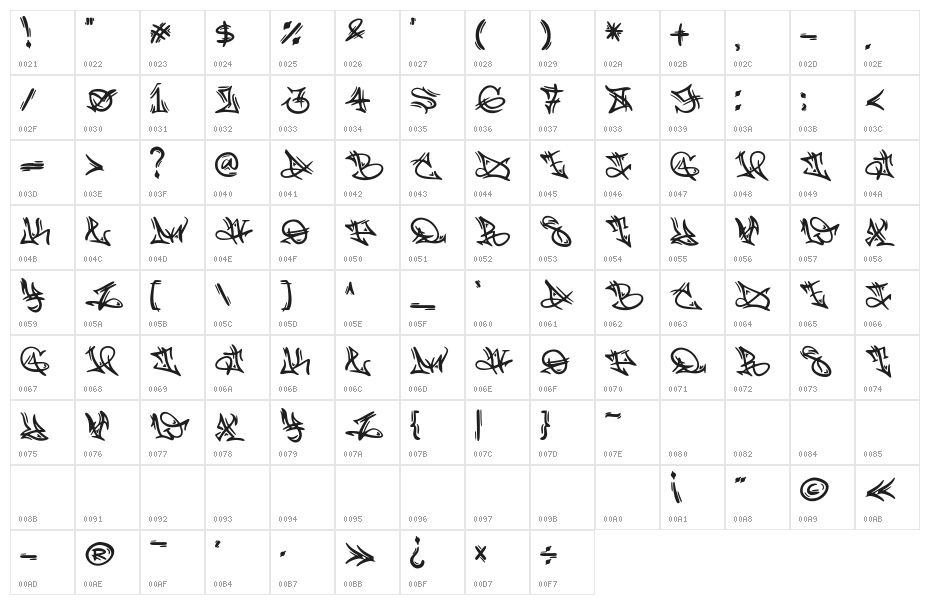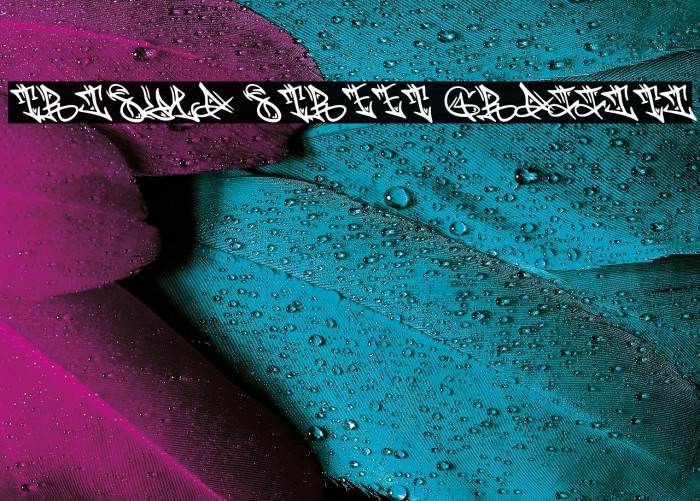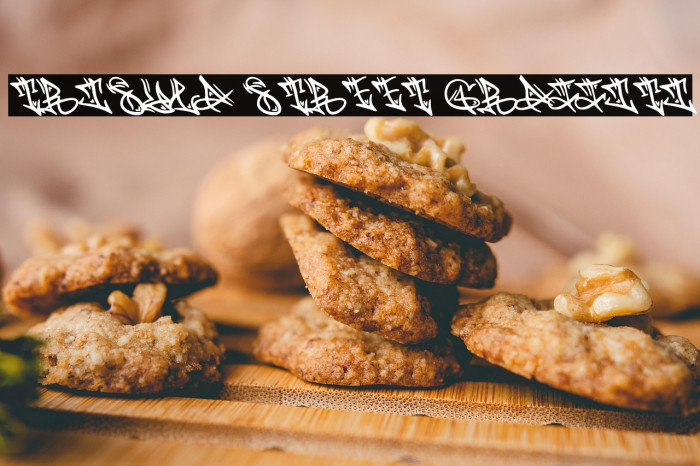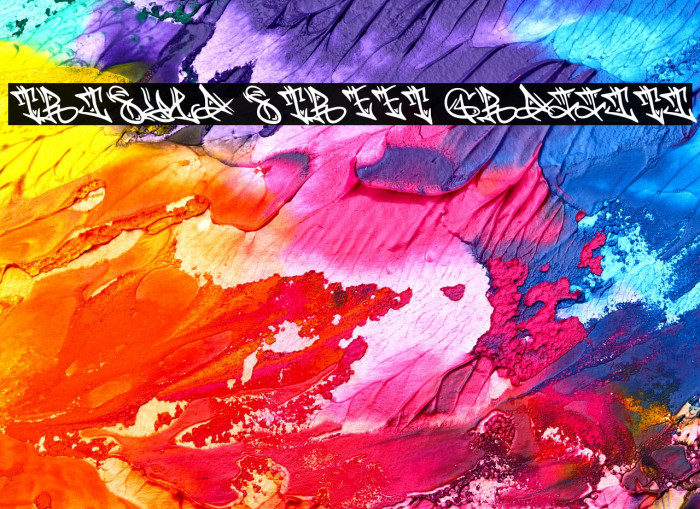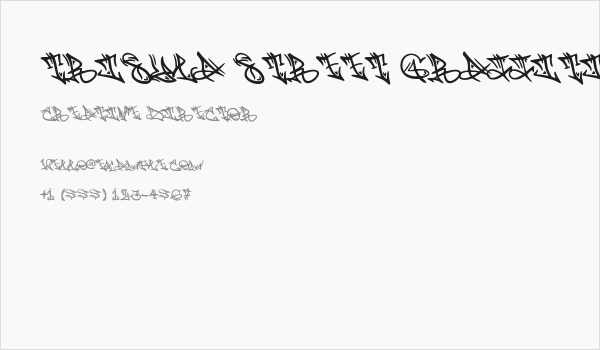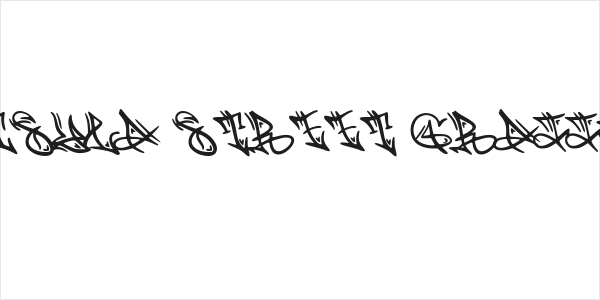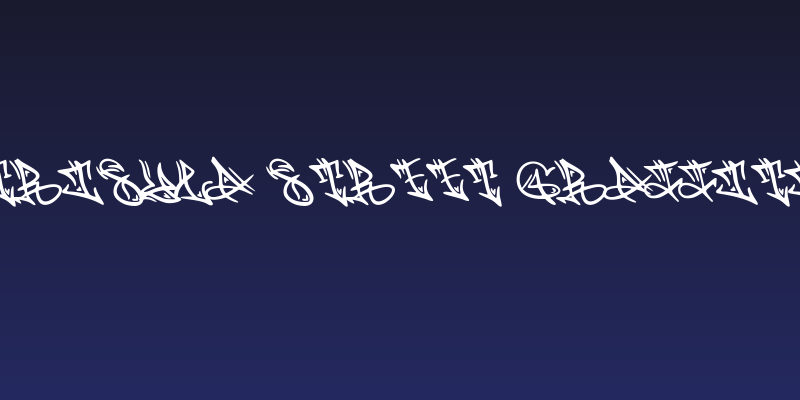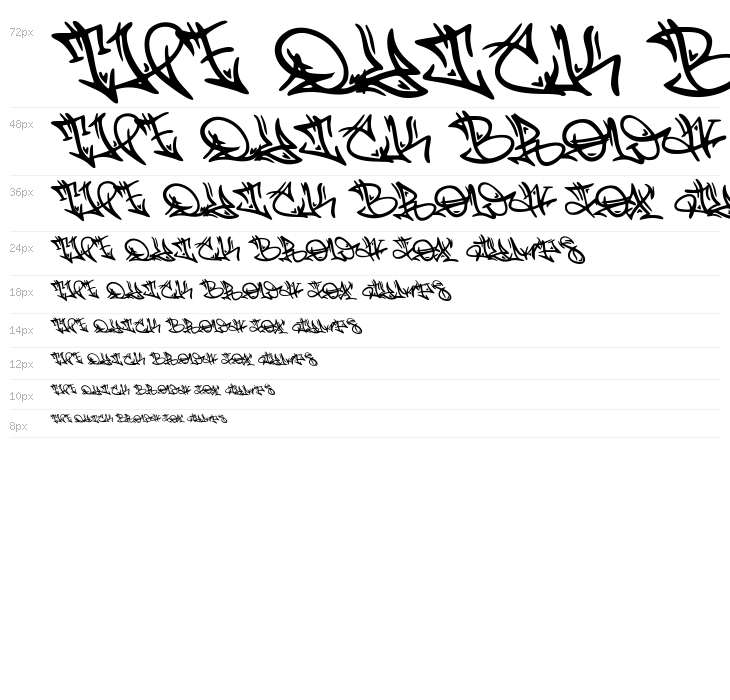
Trisula Street Graffiti Font
Trisula Street Graffiti Description
This font embodies a bold and edgy street graffiti style, characterized by sharp angles and dynamic lines. The letters are highly stylized, with exaggerated curves and points that mimic the spontaneous and rebellious nature of graffiti art. Each character is unique, with intricate details that give the font a sense of movement and energy. The uppercase and lowercase letters maintain a consistent aesthetic, while the numbers and special characters are equally expressive, adding to the overall urban and artistic feel. This font captures the essence of street culture, making it ideal for projects that require a bold and unconventional look.
| Overall Style | Urban, Edgy, Artistic |
| Use Case | Logos, Posters, Album Covers |
| Proposed Projects | Perfect for street art-themed designs, urban branding, music album covers, and event posters. |